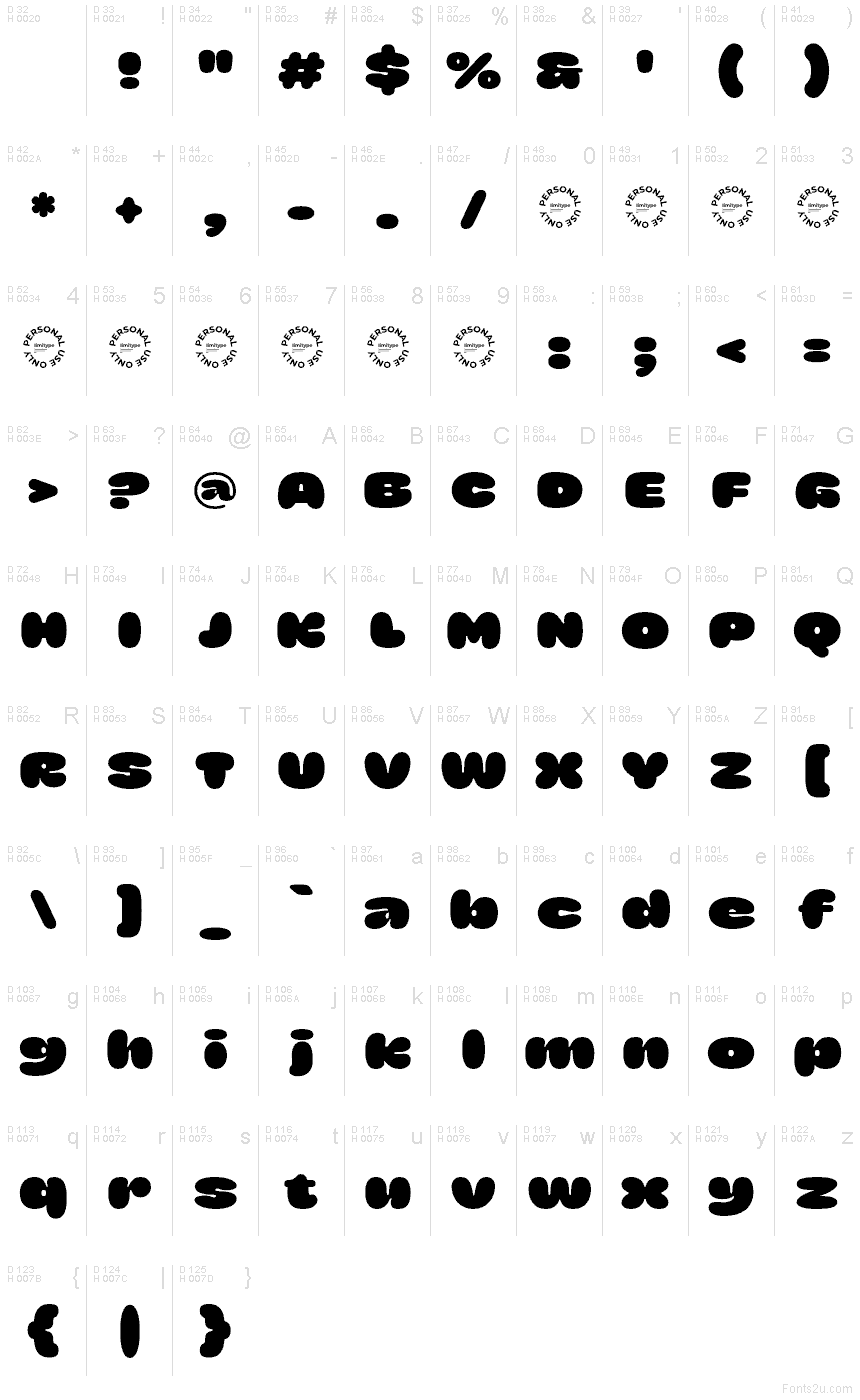
Rownet Bold font by Limitype is a free groovy display typeface that turns any word into a chunky, candy-like headline. Its swollen curves, tight rhythm, and inky, all-black silhouettes feel like they’ve been puffed with air, giving every letter a friendly, bouncy presence. The Rownet family’s bold style pulls the eye instantly, making short phrases feel loud, warm, and a little mischievous all at once.
Using Rownet Bold, your titles and logos pick up a playful, retro-pop energy that works beautifully for kids’ branding, party invitations, poster art, food packaging, social media graphics, and event flyers. This free font shines at large sizes where its soft, pillowy forms can really show. Pair Rownet Bold with a clean geometric sans for body copy to keep your layouts readable while letting the groovy forms handle the fun.